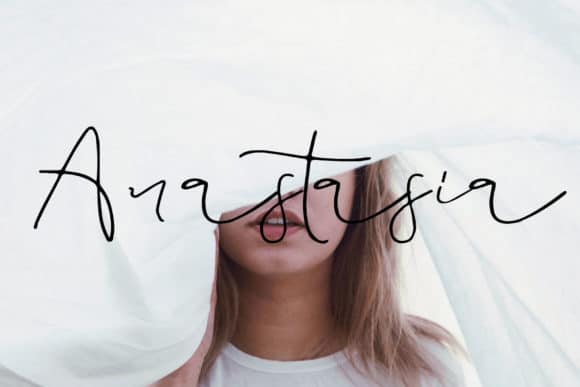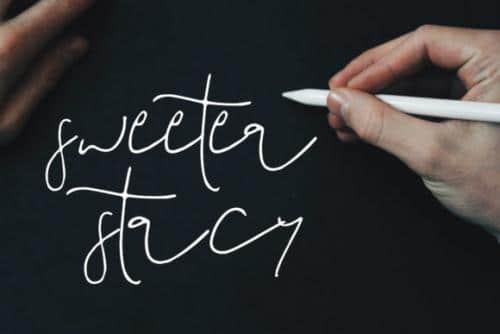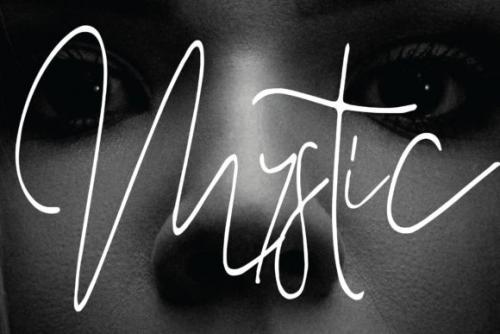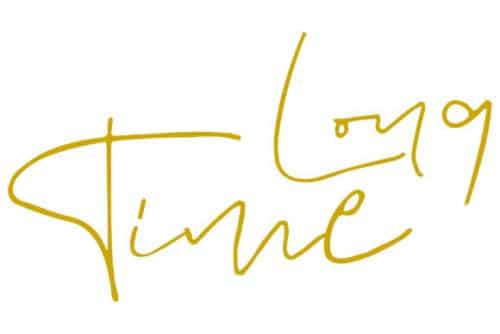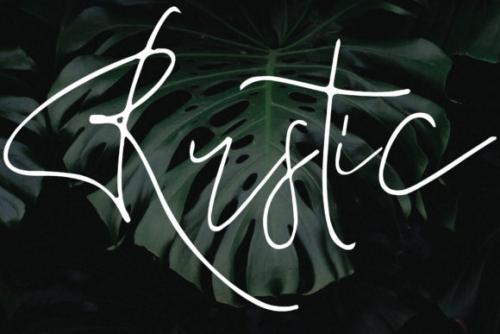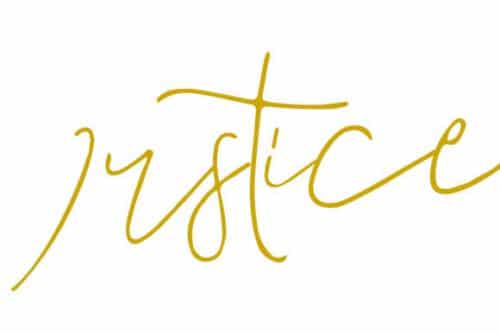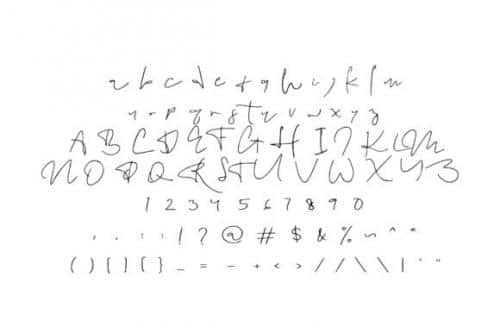
Anastasia combines elegance and authenticity into one extraordinary script fone, designed by goodigital. Get inspired by its contemporary charm.
Anastasia would perfect for photography, watermark, social media posts, advertisements, logos & branding, invitation, product designs, label, stationery, wedding designs, product packaging, special events or anything that need handwriting taste.